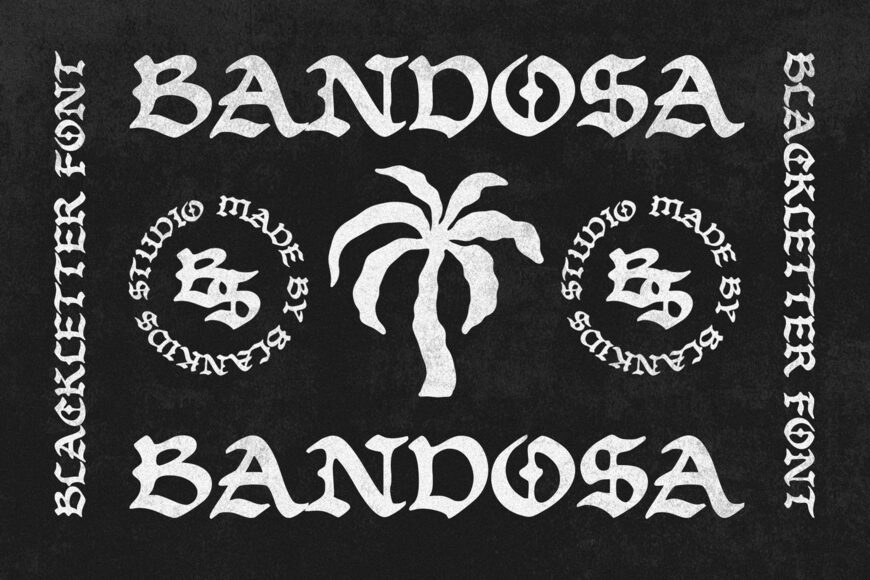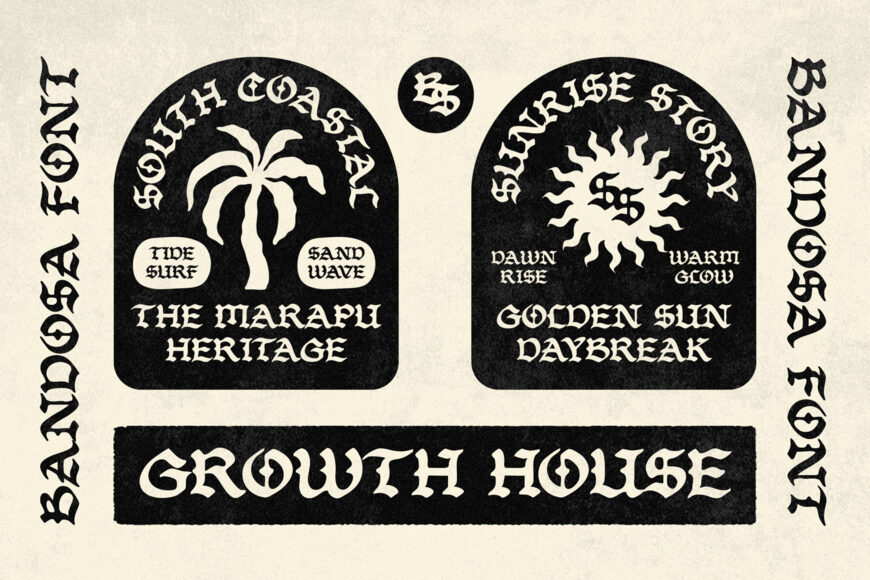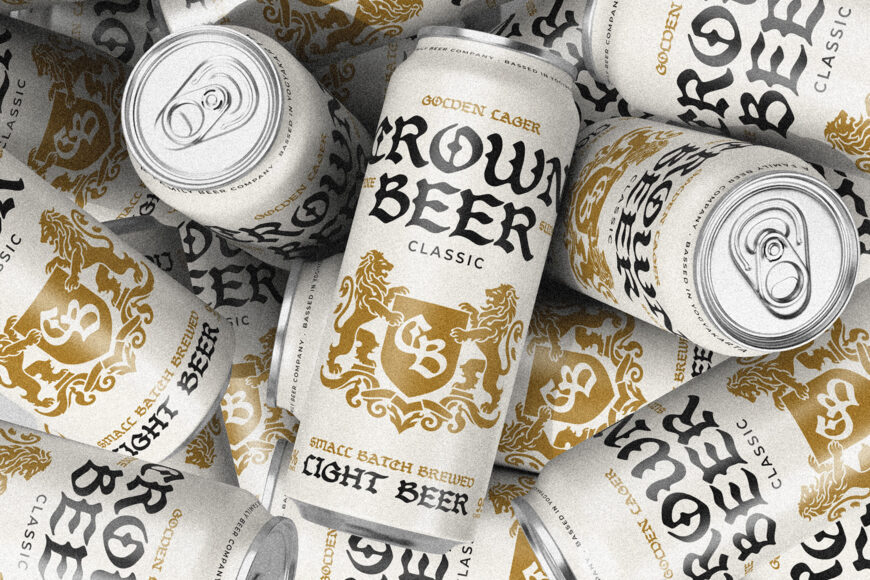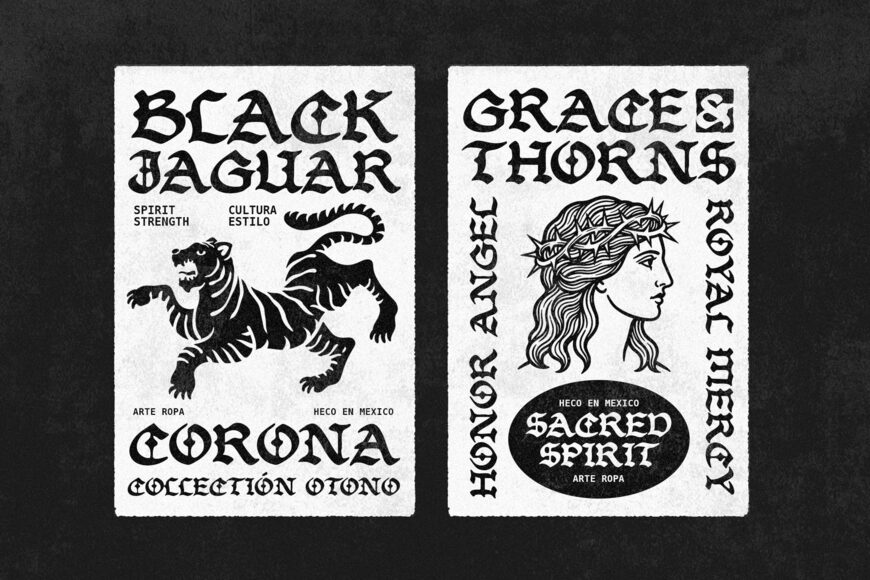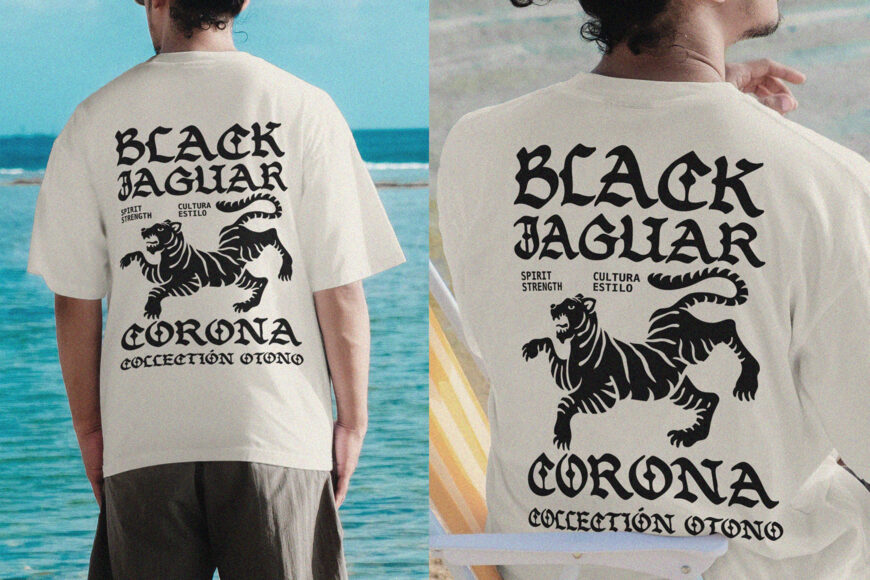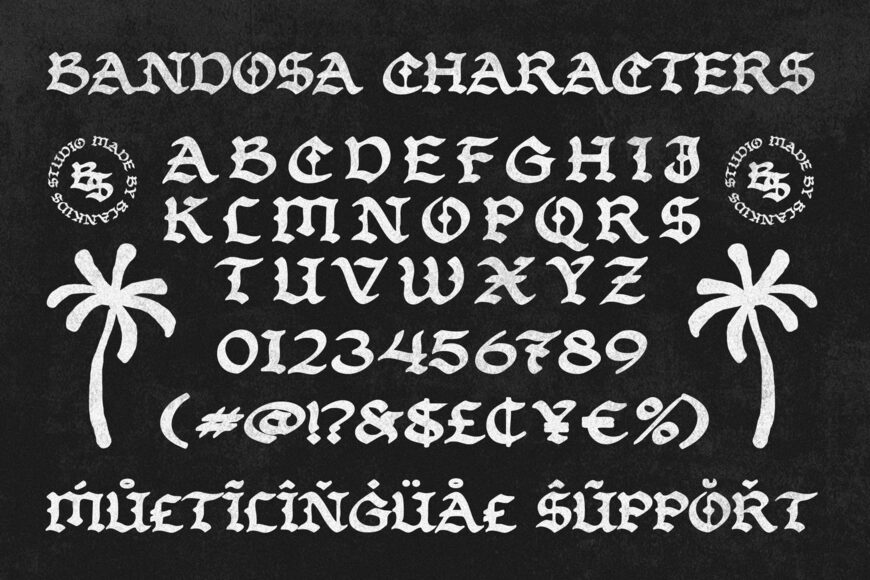
Bandosa is a modern blackletter font with a fresh, tropical twist. Inspired by heritage craftsmanship and coastal subculture, it combines bold vintage letters with a relaxed, handcrafted vibe.